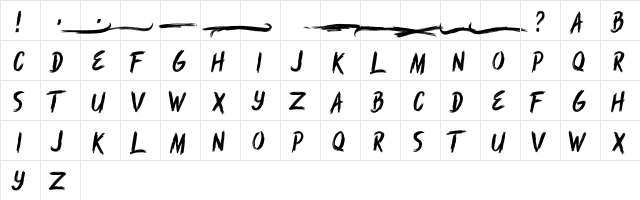
Rush Brush Regular
Design Context for Rush Brush Typeface
Rush Brush brings a calligraphic fluidity to the page — its connecting strokes and expressive curves give it an unmistakably human quality.
Font Pairing: Combine Rush Brush with a simple geometric sans for maximum contrast — the tension between flowing curves and clean structure is a classic typographic pairing.
Pro Tip: Pair Rush Brush with a clean sans-serif for supporting text. The contrast between fluid script and geometric structure creates an elegant typographic hierarchy.